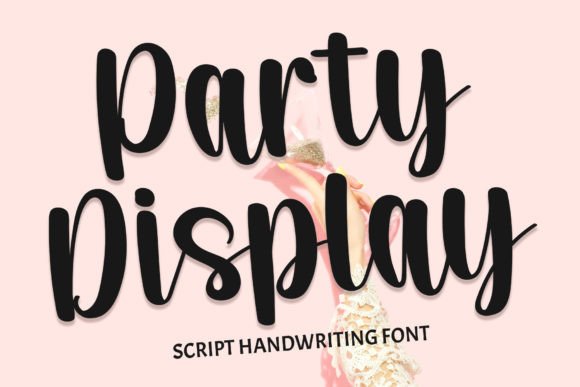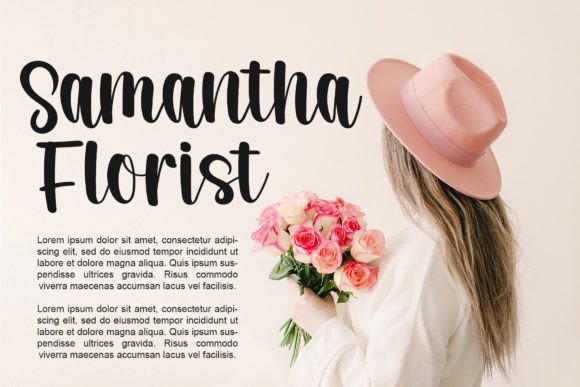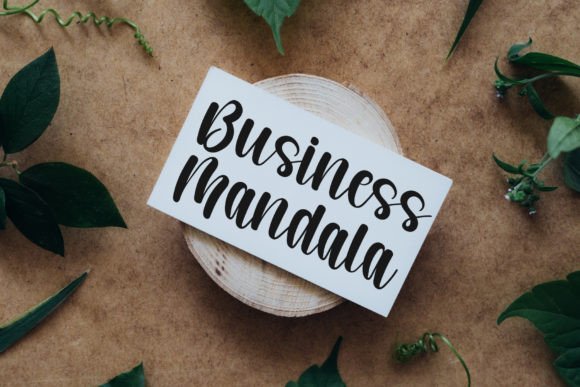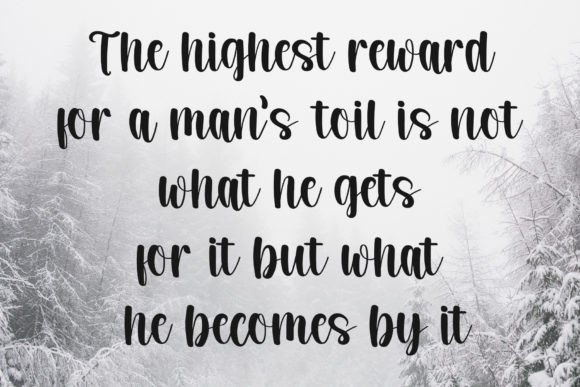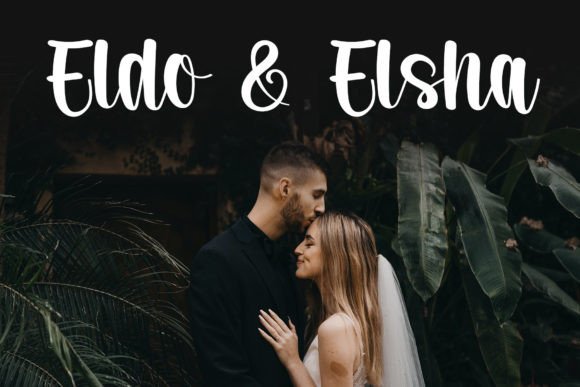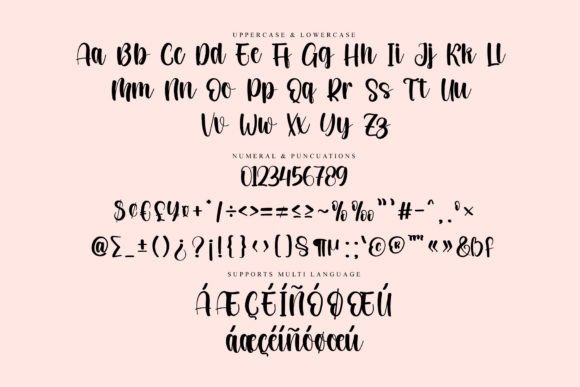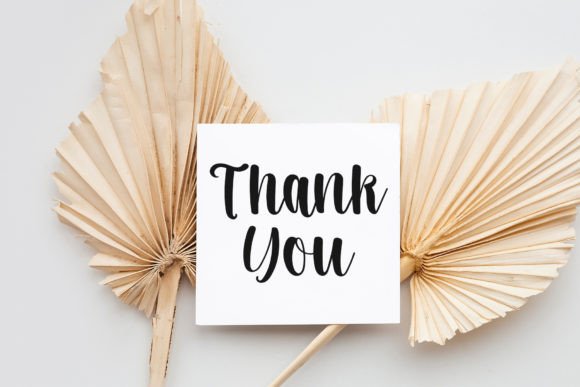
Party Display Font
About Party Display Font
Party Display Font is a stylish and modern handwritten typeface designed to bring a joyful and fresh touch to your creative projects. Its versatile style makes it suitable for a wide range of applications, from greeting cards and headlines to branding and packaging. Whether you’re designing for events, products, or digital content, Party Display adds a lively, handcrafted feel that energizes your work.
Versatile and Joyful Design
Party Display combines modern aesthetics with playful handwritten charm. Its clean yet expressive strokes create an inviting atmosphere that fits both casual and sophisticated themes. This font’s lively personality helps your designs stand out and connect with your audience on a personal level.
Ideal Uses for Party Display Font
This font shines in many design contexts, including:
• Greeting cards and invitations
• Bold headlines and titles
• Branding and logo design
• Product packaging and labels
• Social media posts and promotional materials
Its adaptability makes it a great choice for both print and digital projects.
Why Choose Party Display Font?
Designers appreciate Party Display because it offers:
• Stylish, modern handwritten letterforms
• Clear readability with a fresh, joyful vibe
These qualities make Party Display both practical and creative.
Add Energy and Style to Your Designs
Typography sets the mood, and Party Display brings energy, fun, and personality. Whether you’re creating party invitations, branding, or packaging, this font helps your message pop with style and charm.
In conclusion, Party Display Font is a stylish and versatile handwritten script that adds joy and modern flair to any project. Perfect for a range of creative uses, its PUA encoding makes it easy to access all features. Add Party Display to your font library and make your designs lively and memorable.